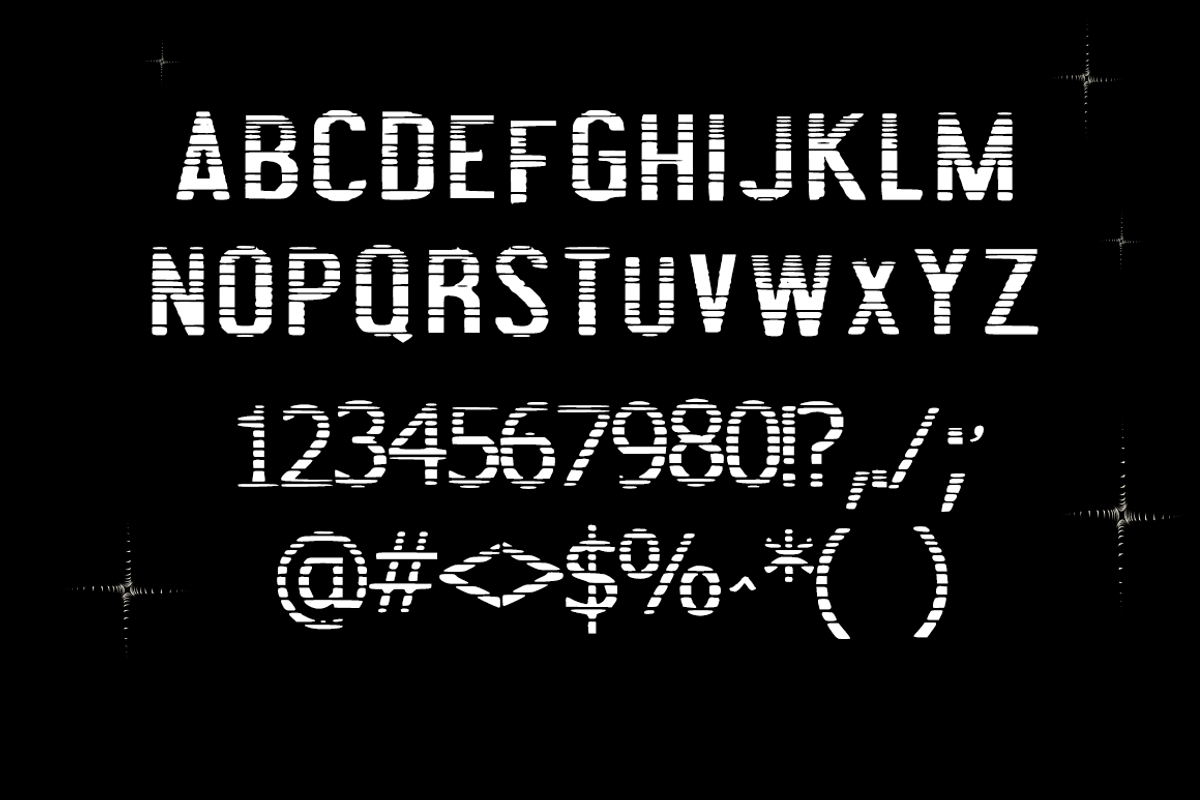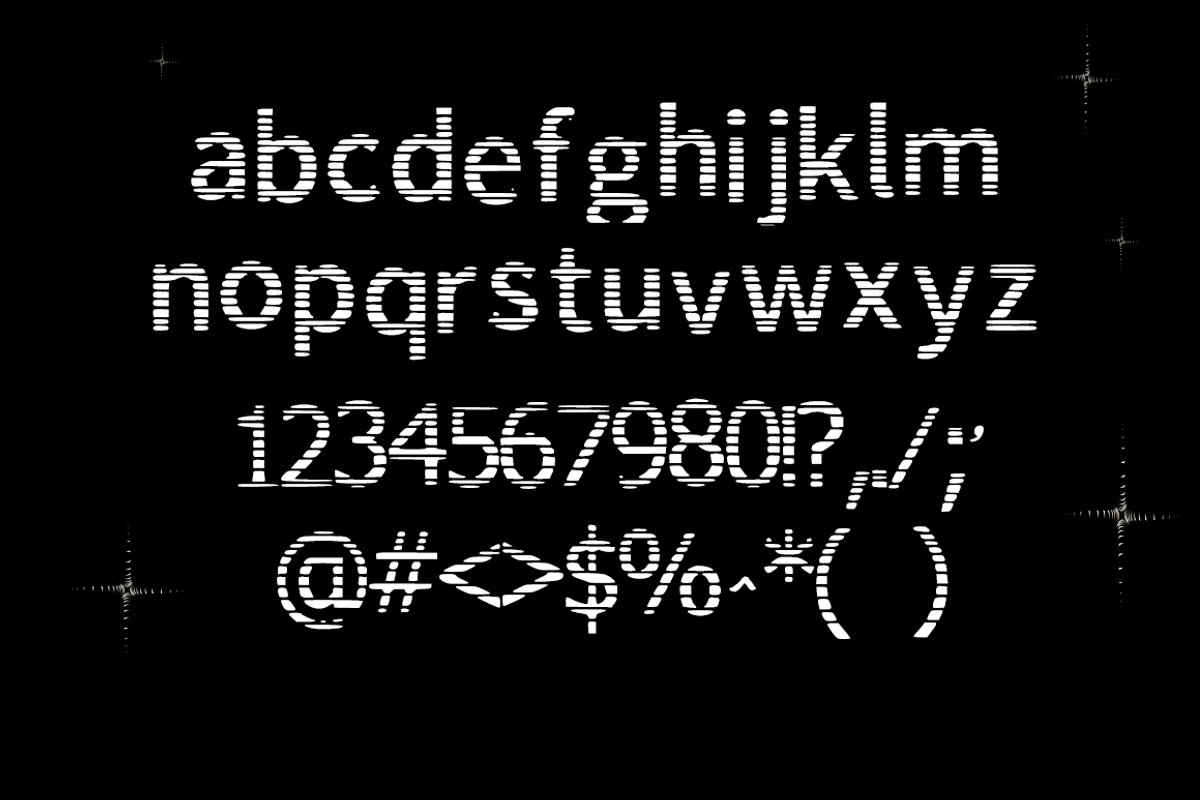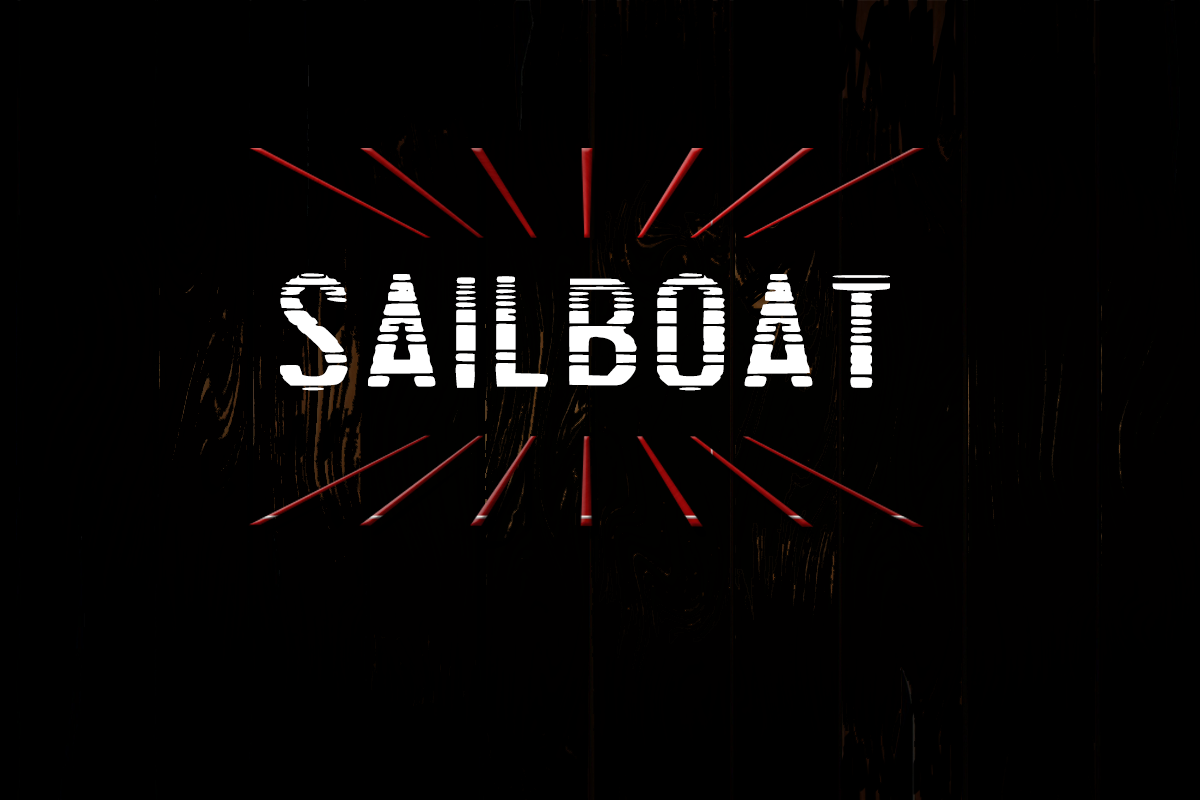
SAILBOAT - a modern font
SAILBOAT - a modern font by Swarovski Crystals is a font selected for branding, posters, packaging, typography.
Why SAILBOAT - a modern font is worth a look
SAILBOAT - a modern font by Swarovski Crystals fits naturally into Branding, posters, packaging, typography.